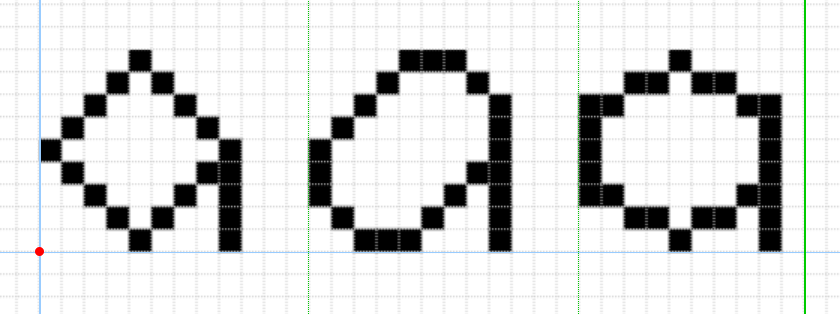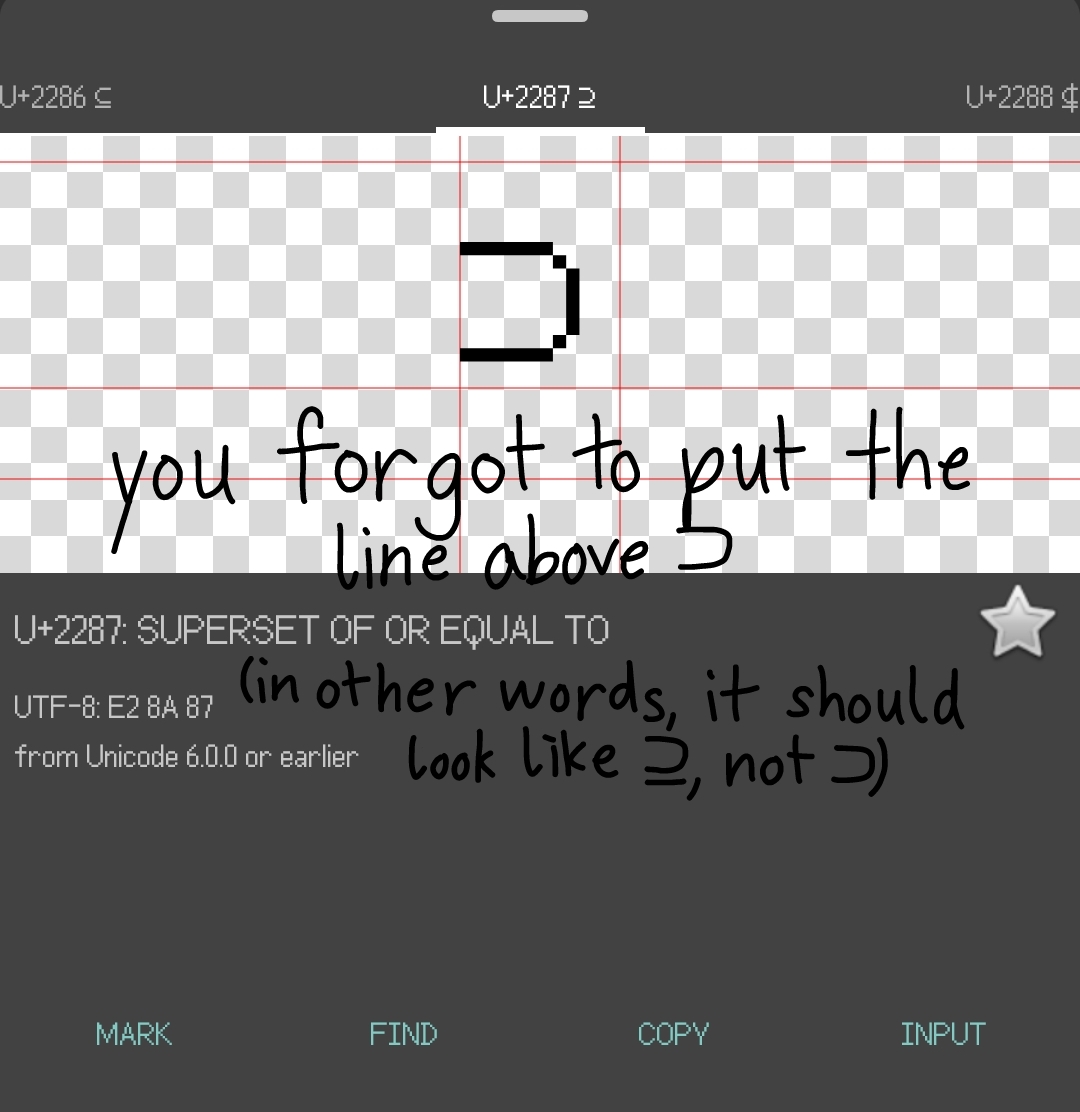
I wonder if CJK will be done on a 15x15 grid on this font, if you get to that point?
19x19, but probably yes, except I don't think I'll get that far.
Nice. I would recommend changing the dot to a line in the "cero" character.
Having a dot in the zero is just a stylistic choice of mine.
Added Superscripts and Subscripts, Currency Sumbols, Letterlike Symbols, Number Foems, some Arrows, and Mathemtical Operators.
OMG
Should I leave the spacing as is, or should I make it two block wider? If I make it two blocks wider, the character cells will be 12*24 instead of 10*22, which is more convenient. Also, should the perion, comma and similar punctuation be bigger?
I think the wider spacing works better. The period does look pretty small, but a 2x2 period might be too big, and would be harder to align with i/j/?/!.
The wider spacing looks better per the sample, so they don't appear too close to eachother.
(Most of) Chess Symbols finised, so now you can add knooks to your text!
I have never heard of that piece, but I am familar with knights, and with rooks…
the knook is a fairy chess piece that can move like a knight and a rook.
also how do i get the knook, eric
@lucapri U+1FA4F for white and U+1FA52 for black.
The spacing on 🮘 (U+1FB98) may need checking out, as well as 🮟 (U+1FB9F), which appears a tad short.
The cedillas on ĢģĶķĻļŅņŖŗ should be commas as the use of the cedilla is wrong in Latvian per this page on Diacritics Project. And also on D̦d̦ for Livonian.
The spacings might need to be checked on the Cyrillic Extended-A combining letters.
The emoji characters could occupy two character widths so as to be able to have more detail on them, but you don't have to make them so if you don't want to.
Another thing, the arabic characters in Arabic Forms-B should connect with others as appropriate.
Oh, before I forget, the diacritic on Ѝ should be a grave and not an acute.
@BWM I have used cedillas instead of commas for potential compatibility with languages that use the cedilla forms, following the examples of ŞşŢţ vs ȘșȚț. The comma forms will be added into a presentation forms block in one of the private use areas.
All other errata should hopefully be fixed.
Added Klingon and Aiha and finished off phonetic characters in the PUA.
There's a Unicode 16.0
request: greek extended
Which style of fraktur letters works best?
2nd
bug found at U+2287
@Unebenseyt-backup: I see it
@Bargewaxen2K26 Fixed, and in the process, fixed alignment of more mathematical operators and finished (most of) Mathematical Operators, reaching the 10k character mark.
I admire the dedication!
Unicode 16 errata: ꭋ, ꭌ glyph shapes were changed. They should look like 2, ߶ but smaller and rotated.
B E E G
good job you did dek and ell